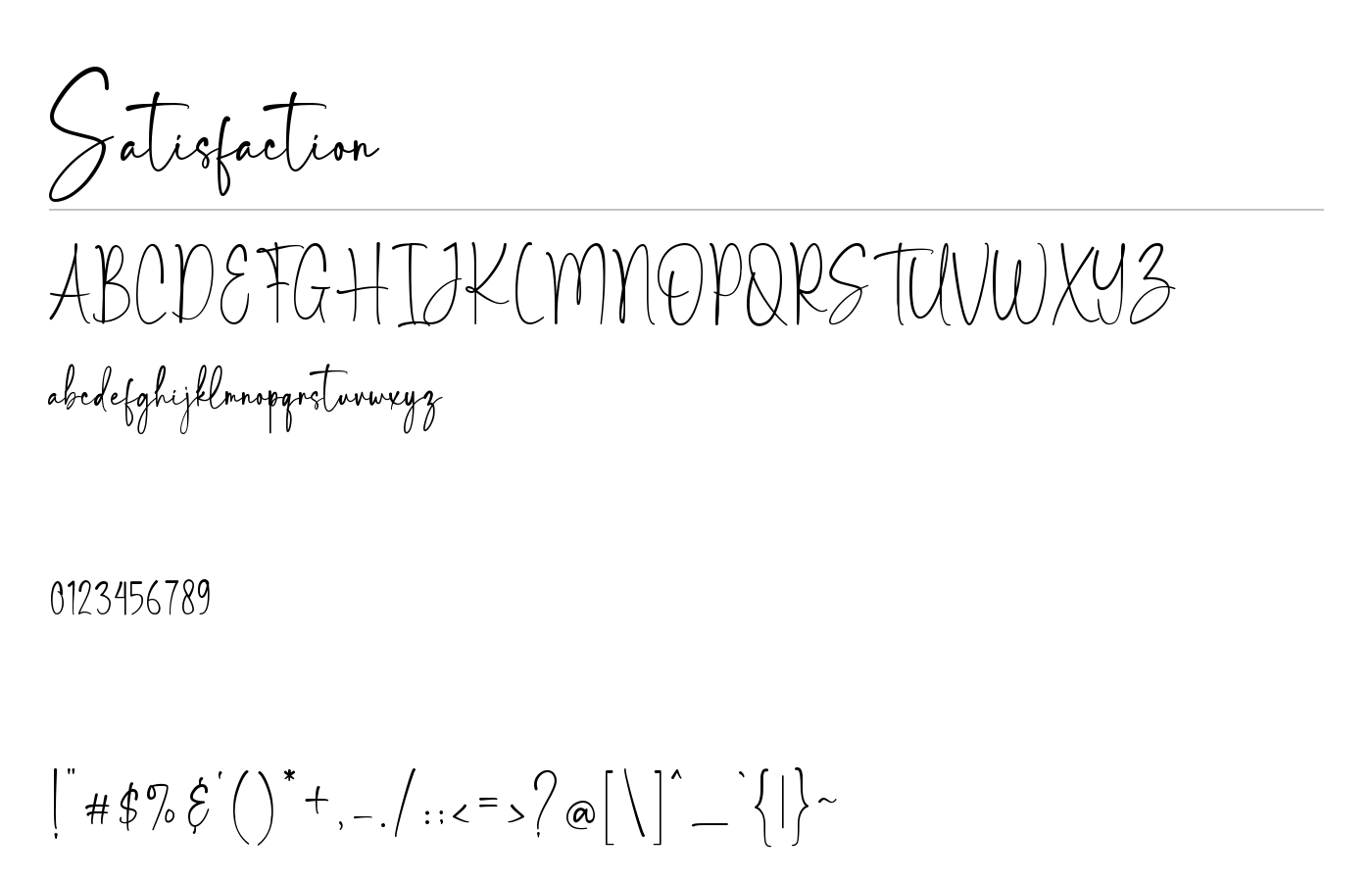
Satisfaction is a delicate, handwritten script font with a tall, slender structure and playful, irregular strokes that give it a charming and personal feel. Its thin weight and lively letterforms make it ideal for creative, feminine, or casual branding, adding a touch of warmth and elegance to invitations, logos, and stylish editorial designs. This font works best where a light, airy, and handcrafted vibe is desired, making any text feel intimate and unique.
Satisfaction Font
About Satisfaction Font
| Font family | Satisfaction Font |